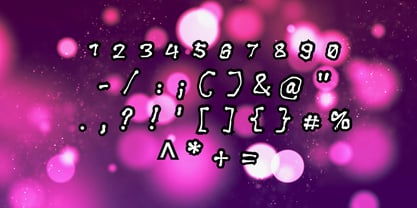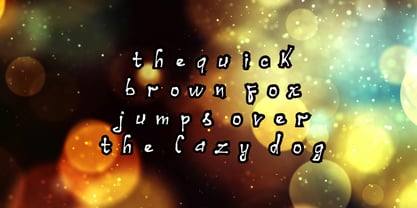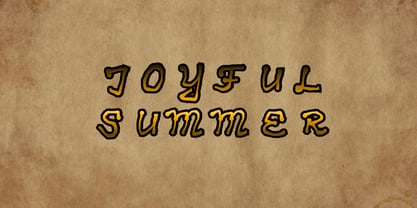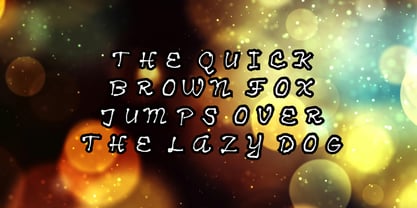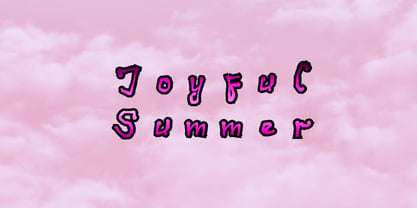
Joyful Summer
The Joyful Summer Font Family was designed by Angela Topalova and published by Pyramind. Joyful Summer contains 1 styles. More about this family
Joyful Summer is a radiant display typeface that captures the carefree spirit of sun-drenched days, warm breezes, and spontaneous adventures. Designed to bring instant happiness to any layout, this font blends playful curves with confident strokes, creating letterforms that feel both lively and effortlessly stylish. It’s the typographic equivalent of golden hour light — soft, glowing, and impossible to ignore. At its heart, Joyful Summer celebrates movement and rhythm. Each character flows naturally into the next, giving your words a hand-crafted charm while maintaining excellent readability. The smooth, rounded edges and balanced proportions make it perfect for eye-catching headlines, branding, packaging, and social media graphics that need a fresh, uplifting personality. Whether you’re designing for a beach-themed event, a lifestyle brand, a children’s product, or a modern boutique, Joyful Summer adds warmth and authenticity in an instant. The font’s playful energy is thoughtfully refined. While it radiates spontaneity, its structure is carefully crafted to ensure consistency across projects. The uppercase letters make a bold, confident statement, while the lowercase characters add a friendly, approachable touch. Together, they create dynamic compositions that feel natural and inviting. Joyful Summer truly shines in creative applications. Imagine it on vibrant product packaging, cheerful greeting cards, wedding invitations, summer festival posters, café menus, or stylish Instagram quotes. Its expressive personality makes even simple phrases feel special. Pair it with a clean sans serif for a modern contrast, or combine it with a delicate script for layered, sun-kissed elegance. Versatility meets character in this typeface. It’s bold enough to stand alone as a statement font, yet flexible enough to complement a wide range of design styles — from minimal and contemporary to colorful and eclectic. The letterforms maintain clarity at various sizes, making it suitable for both large-format displays and smaller branding elements. Joyful Summer isn’t just a font — it’s a mood. It brings optimism, creativity, and a touch of nostalgia to every project. If you’re looking to infuse your designs with brightness, charm, and a genuine sense of fun, Joyful Summer is ready to make your words shine.
Designers: Angela Topalova